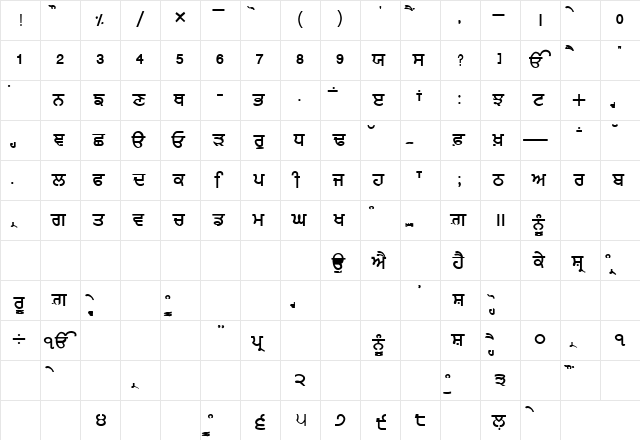
GurmukhiLys 010 Wide Normal
Design Context for GurmukhiLys 010 Wide Typeface
GurmukhiLys 010 Wide takes a measured approach to typography — its balanced proportions and neutral character make it a reliable workhorse for both digital and print work.